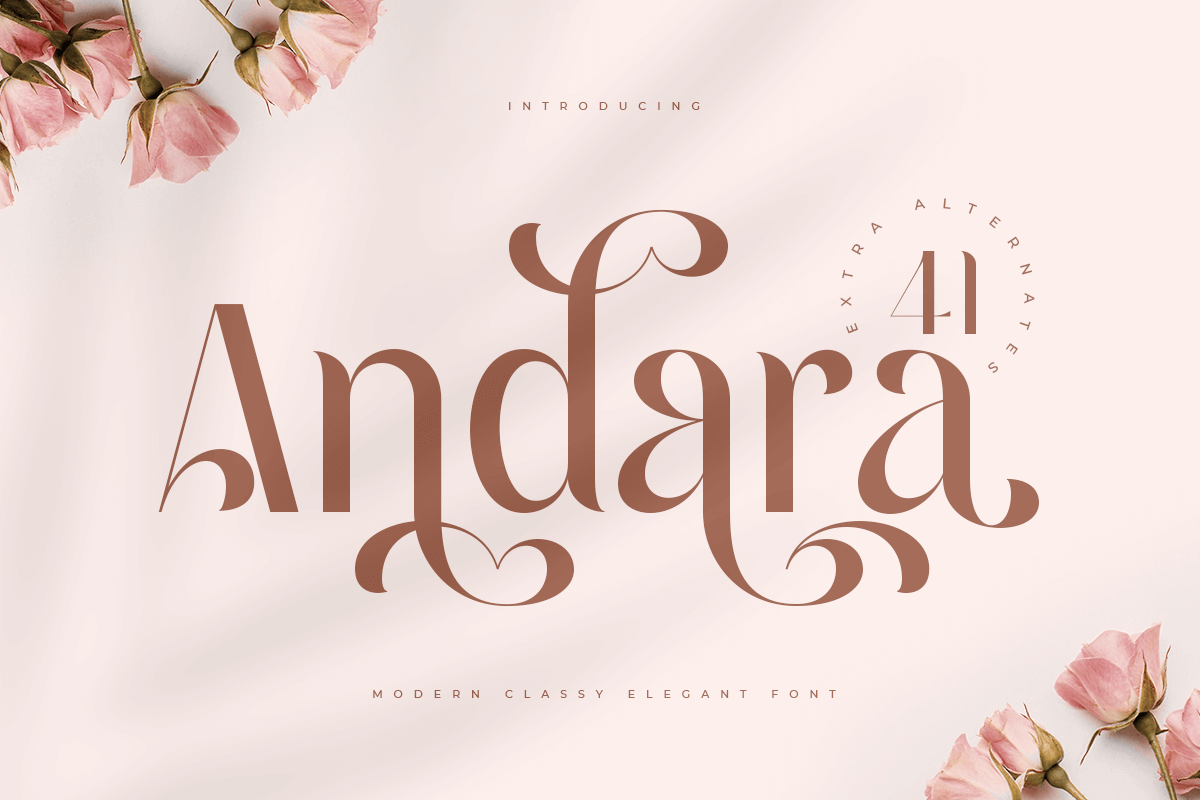
Andara
A Luxury Love Font that we created special for elegant branding needs, with unique shape will be ready to add value of your brand. It so nice to leverage designer or product owner that need solutions to make their design look more stylish and modern. And specially for Andara font, We prepared any characters to help you create unlimited variations for your creative needs.
Unique Luxury Love Characters wit swash as alternates inside
Preview as a inspirations that you can do with Andara font